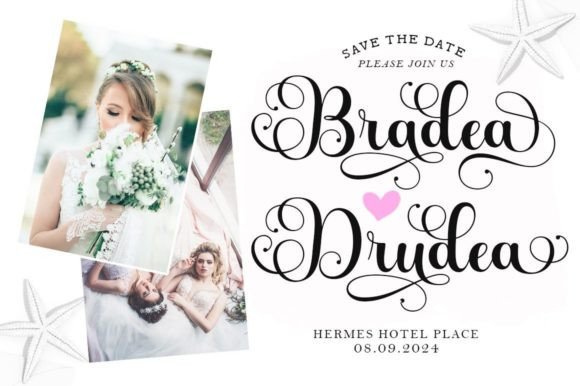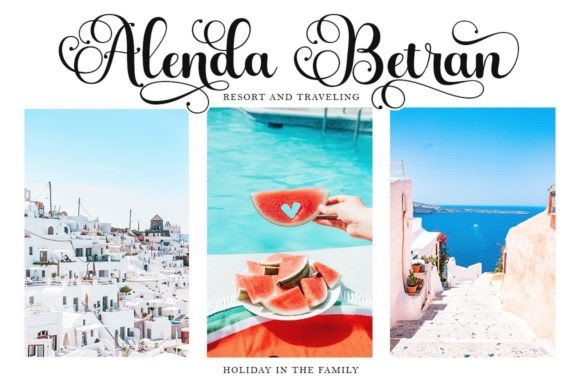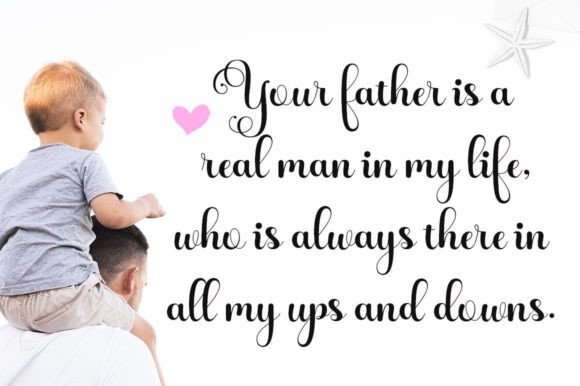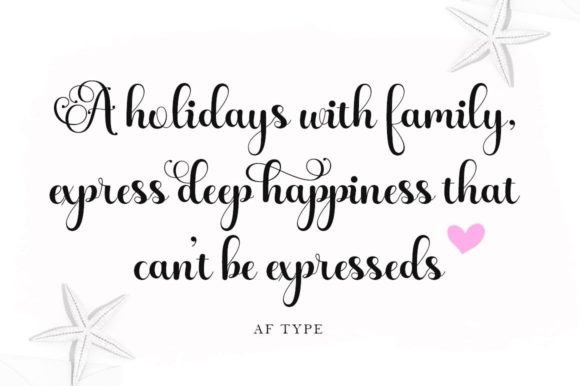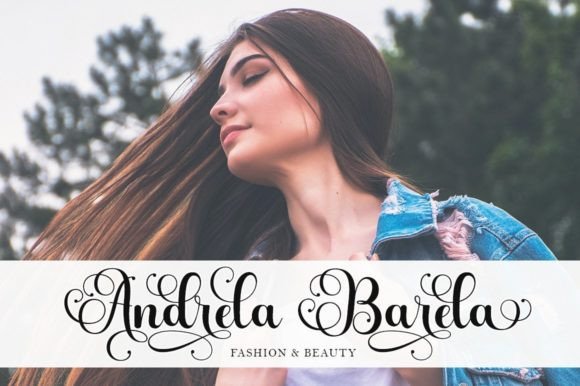
About Andrela Font
Andrela is not just a font; it’s a masterpiece of elegance and refinement, meticulously crafted to add a touch of sophistication to your creative endeavors. This elegant script font exudes an air of contemporary grace while drawing inspiration from timeless classic calligraphy. With its impeccable form and balanced strokes, Andrela strikes the perfect harmony between elegance and versatility, making it an ideal choice for a wide array of projects.
Imagine Andrela gracing an upscale wedding invitation. Its elegant script style and balanced strokes create an atmosphere of romance and sophistication, setting the stage for a memorable celebration. The font’s timeless classic calligraphy inspiration transforms the invitation into a work of art, reflecting the couple’s love story with grace and poise. Andrela turns ordinary invitations into extraordinary pieces, leaving a lasting impression on every recipient.
In branding and logo design, Andrela adds a touch of class. Picture it in a high-end fashion brand’s logo or a premium product packaging. Its elegant and contemporary atmosphere exudes sophistication, making the brand memorable and appealing to discerning customers. Andrela’s impeccable form ensures that the brand stands out, leaving a lasting impression on clients and creating a sense of trust and admiration.
For creative projects, Andrela’s versatile style adds a layer of sophistication. Whether you’re designing a magazine layout, a poster for a cultural event, or a menu for a fine dining restaurant, this font elevates the overall aesthetic, making the content visually striking and captivating. Andrela’s ability to enhance the beauty of your projects ensures that your designs are both elegant and impactful, leaving a lasting impact on viewers.
Moreover, Andrela seamlessly integrates into digital designs, social media graphics, and online advertisements. Its contemporary elegance creates a sense of professionalism, making the content visually appealing and engaging. Whether you’re creating website headers, social media posts, or digital newsletters, Andrela enhances the user experience, leaving a positive and memorable impression on visitors and readers.
In summary, Andrela is more than just a font; it’s a design essential that breathes life into your creative projects. Its elegant script style, inspired by timeless classic calligraphy and enhanced by a contemporary atmosphere, transforms your designs into visually stunning masterpieces. So, let Andrela be the secret ingredient that adds a touch of timeless beauty and sophistication to your creative endeavors, capturing the attention and admiration of anyone who experiences them.